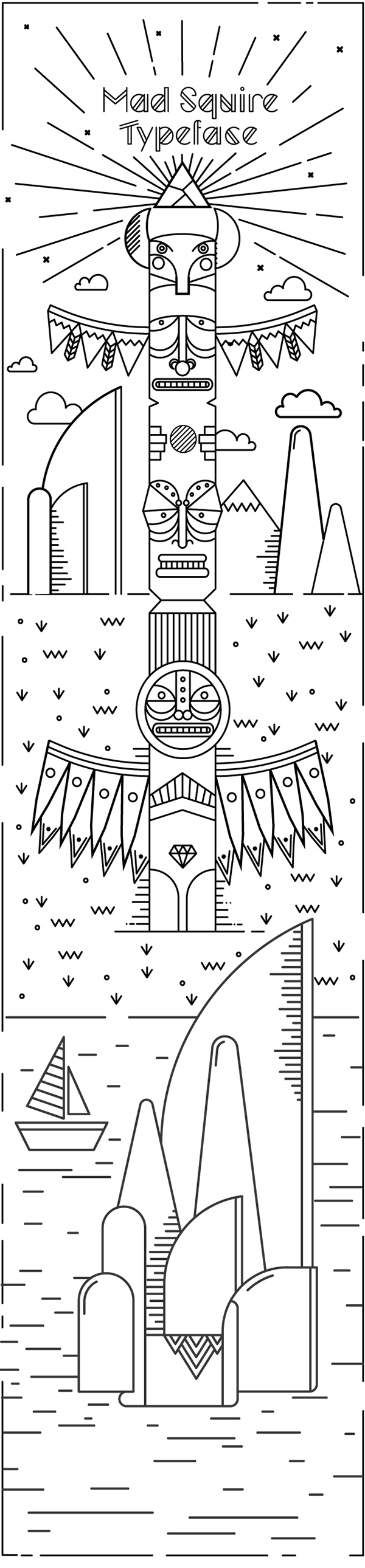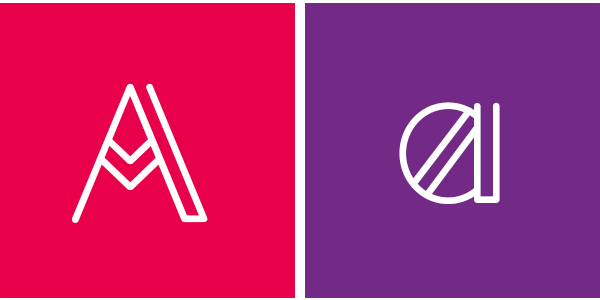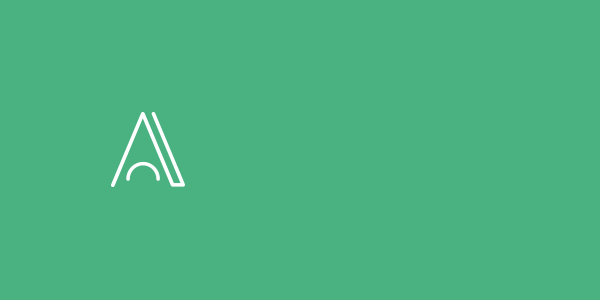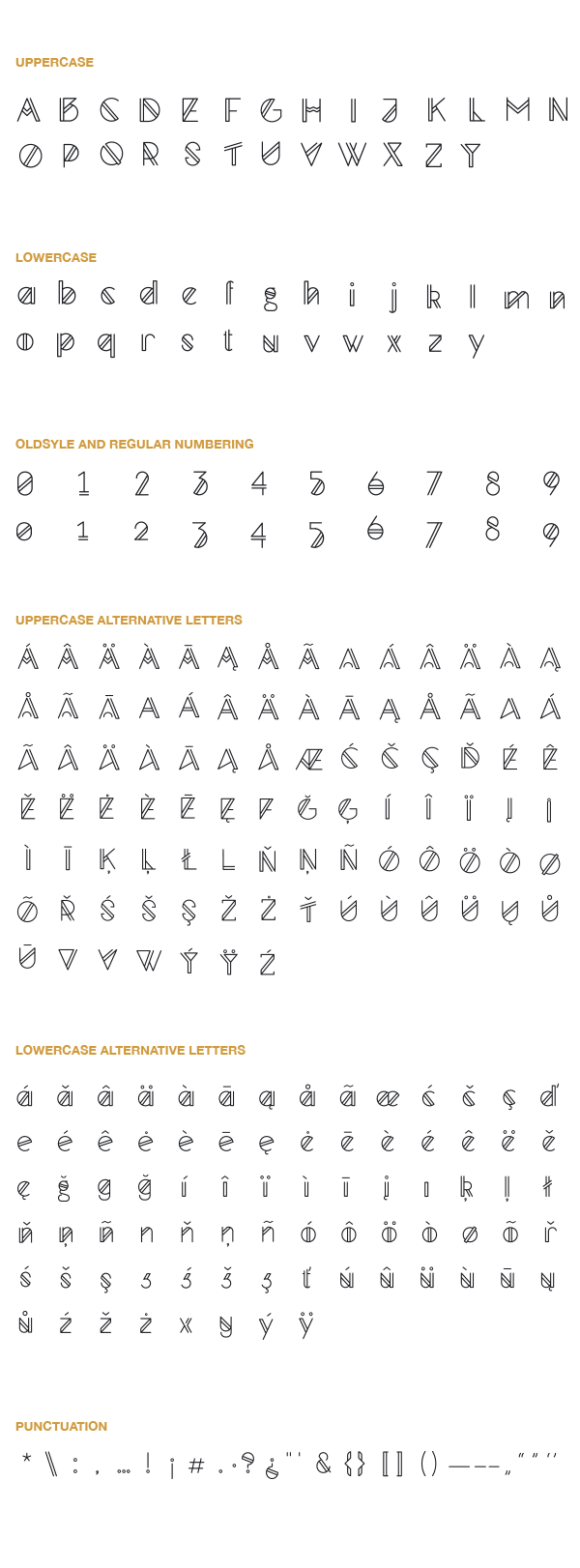
Mad Squire free typeface
Creativity is in the air with this super cool sans serif typeface made of parallel lines. This geometrical free font has some uppercase alternative versions for some letters, take a look to the “A”. Don’t miss it : )
Mad Squire typeface
Mad Squire
Mad Squire alternative letters
Mad Squire typeface